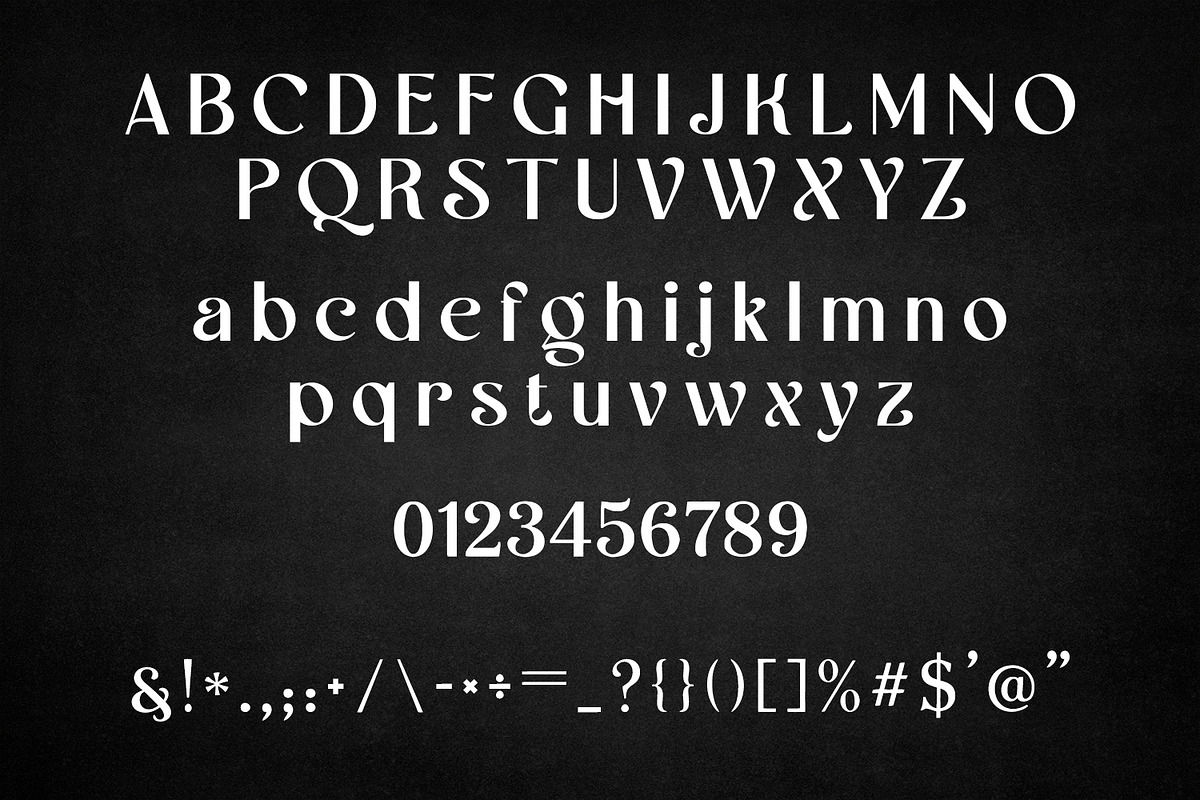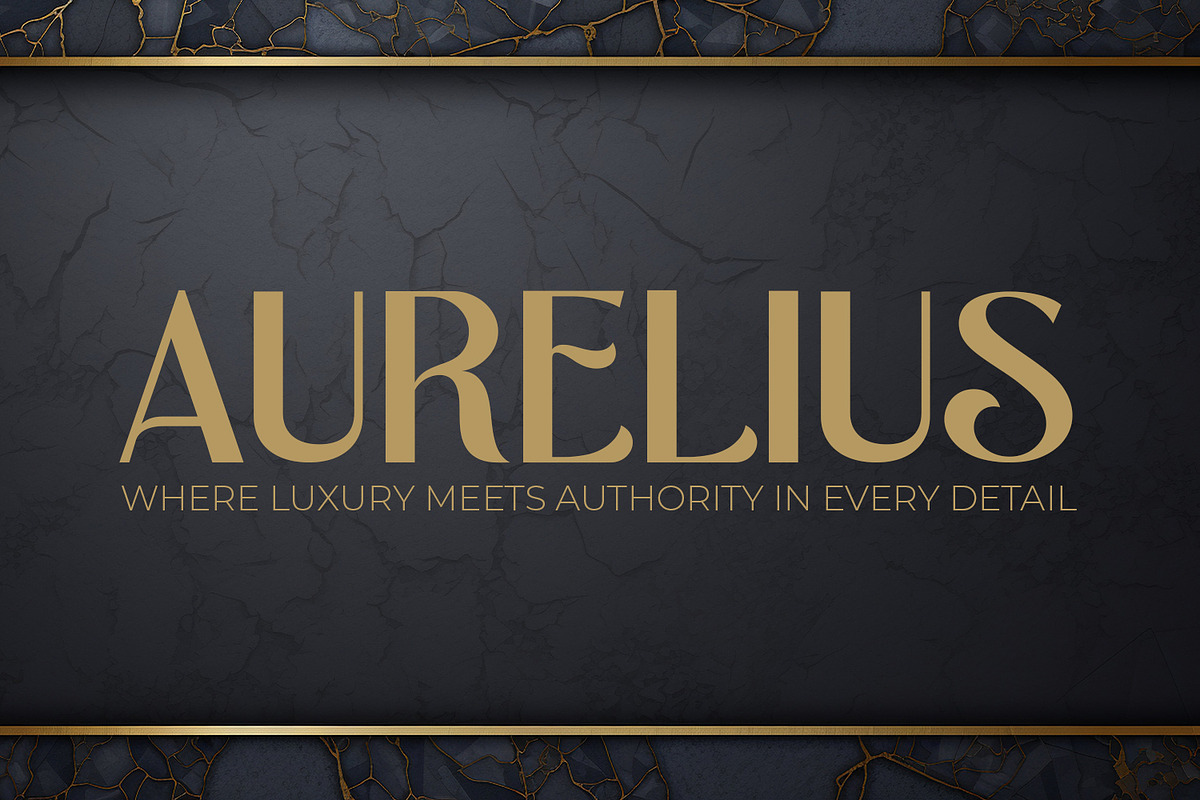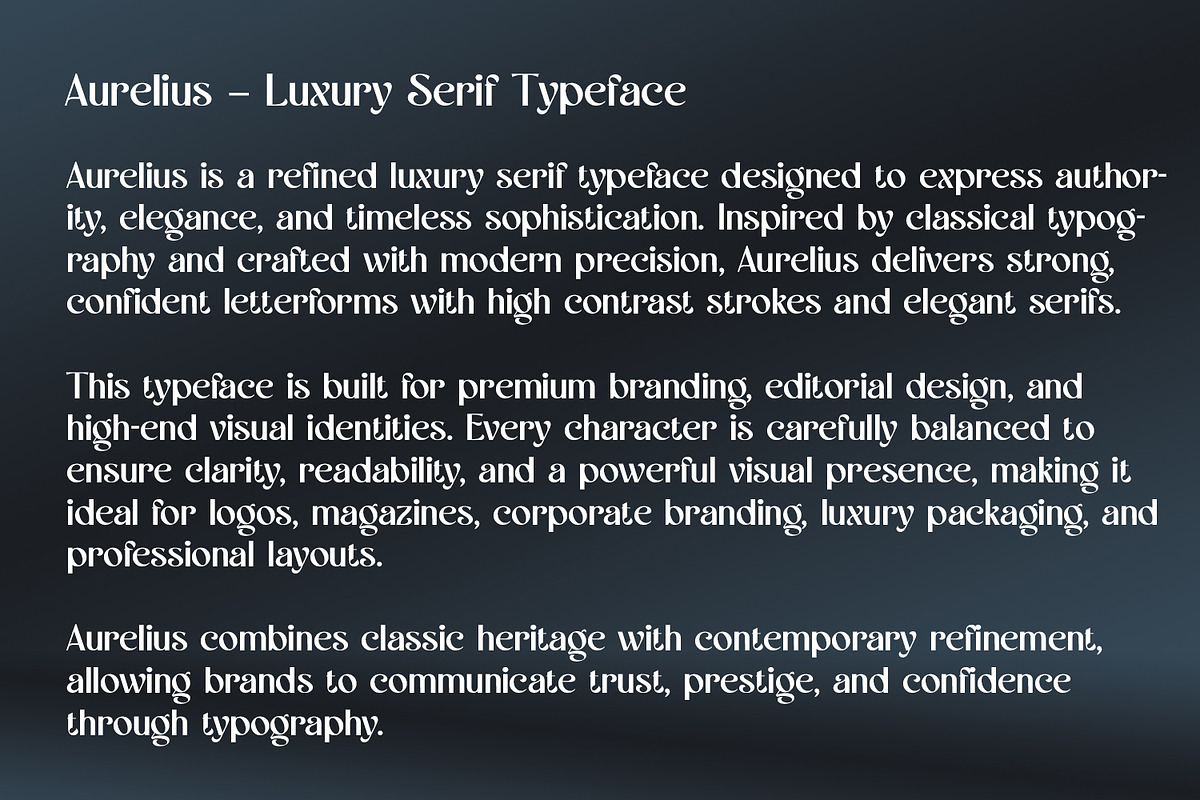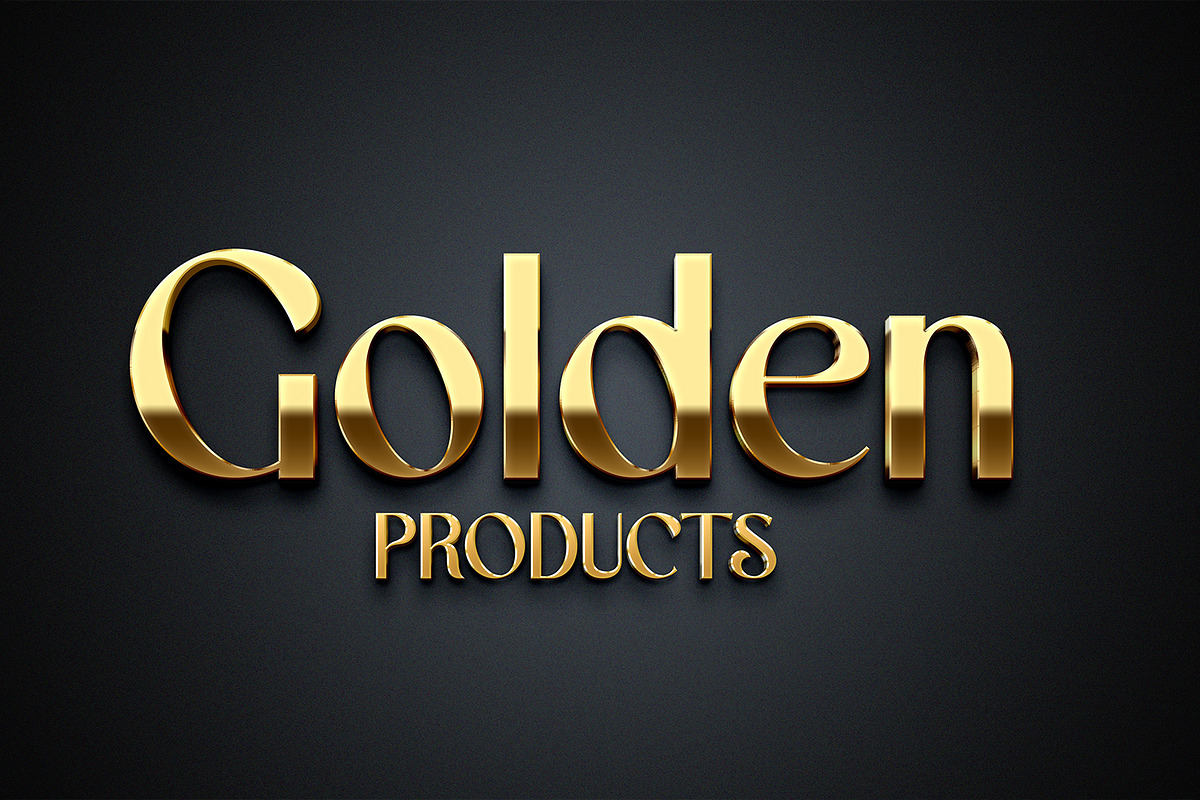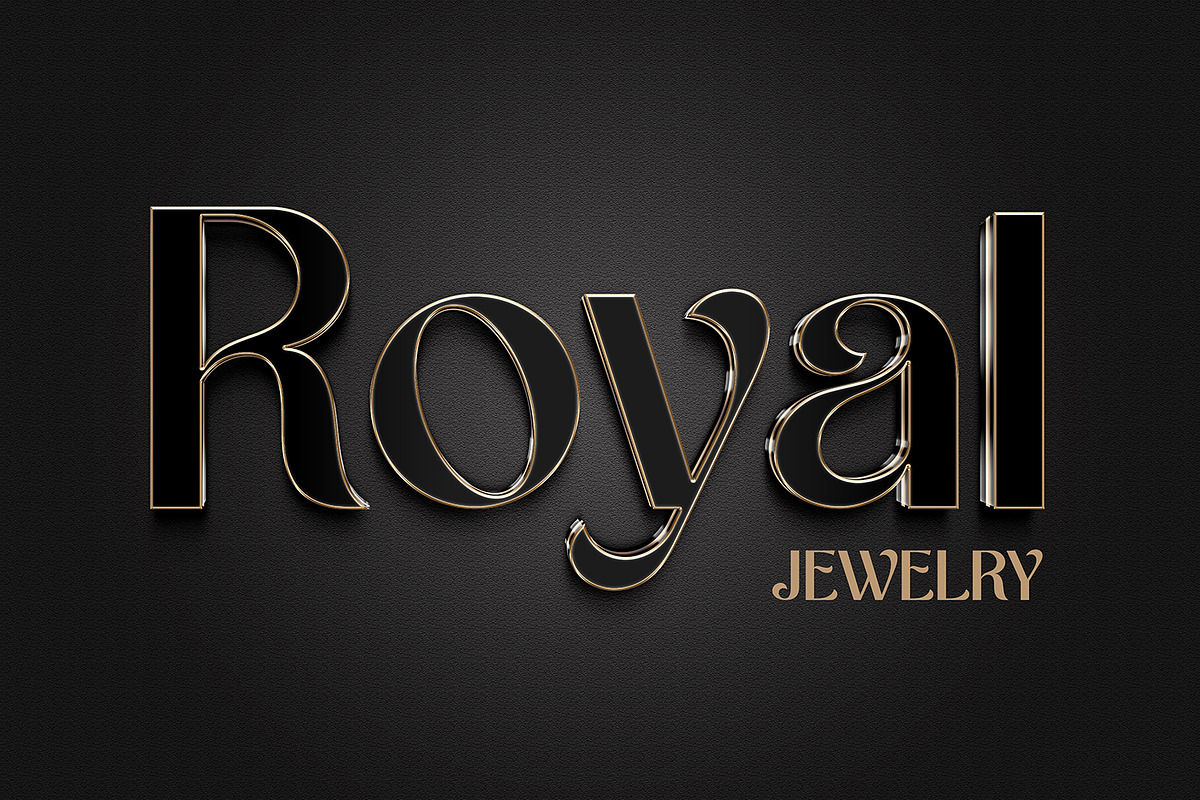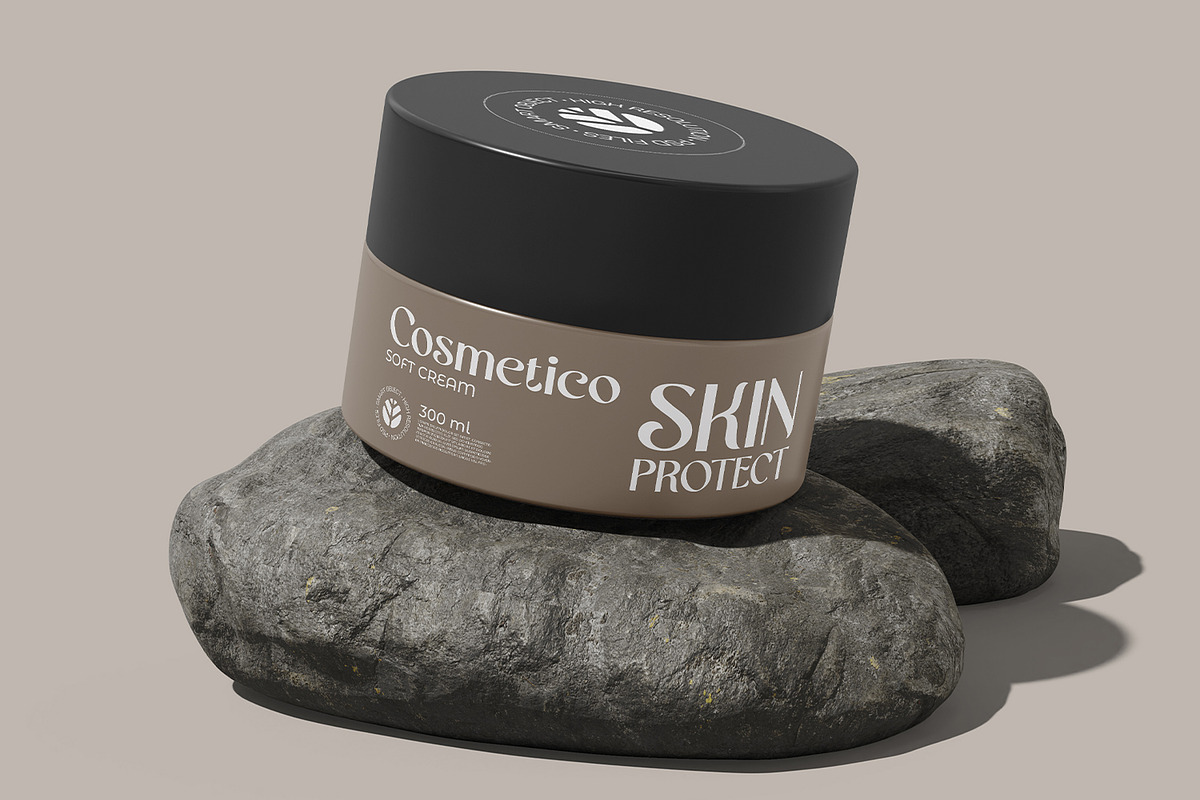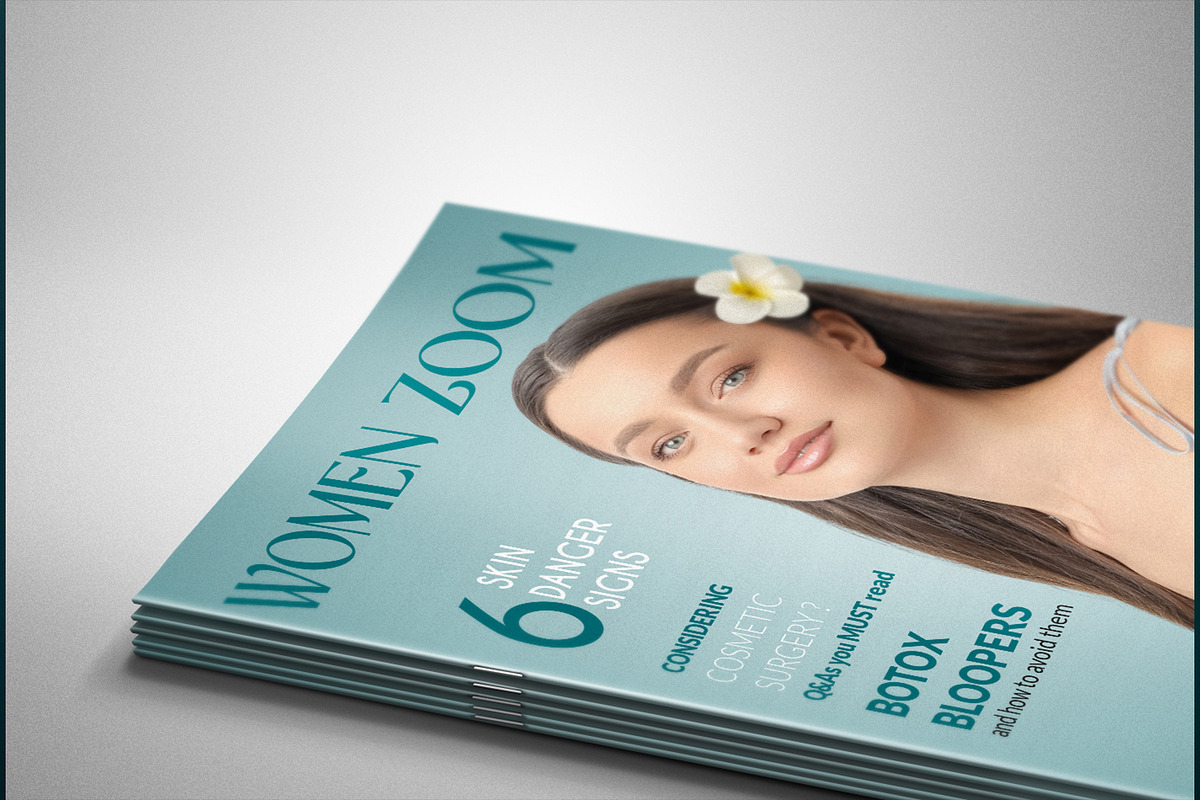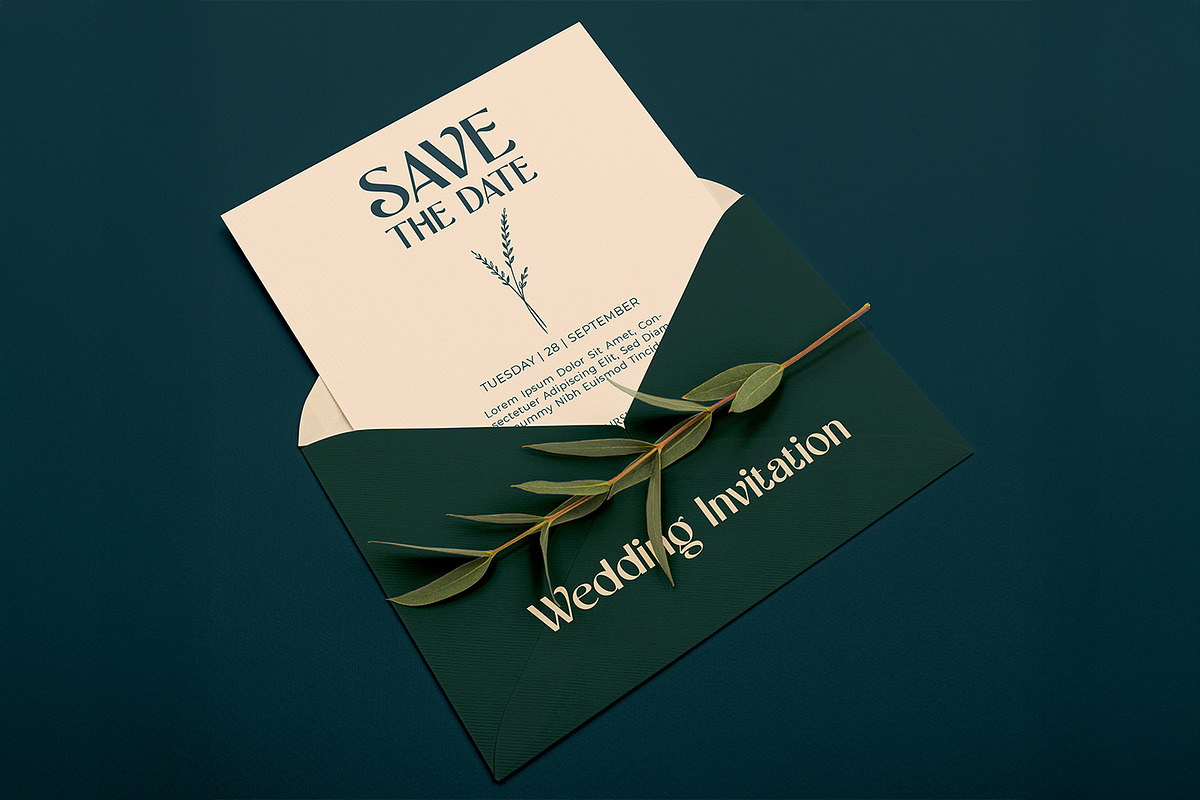
Aurelius - Luxury Serif Typeface
Aurelius is a refined luxury serif typeface designed to express authority, elegance, and timeless sophistication. Inspired by classical typography and crafted with modern precision, it delivers strong, confident letterforms with high contrast strokes and elegant serifs.
This typeface is built for premium branding, editorial design, and high-end visual identities. Every character is carefully balanced to ensure clarity, readability, and a powerful visual presence, making it ideal for logos, magazines, corporate branding, luxury packaging, and professional layouts. Aurelius combines classic heritage with contemporary refinement, allowing brands to communicate trust, prestige, and confidence through typography.